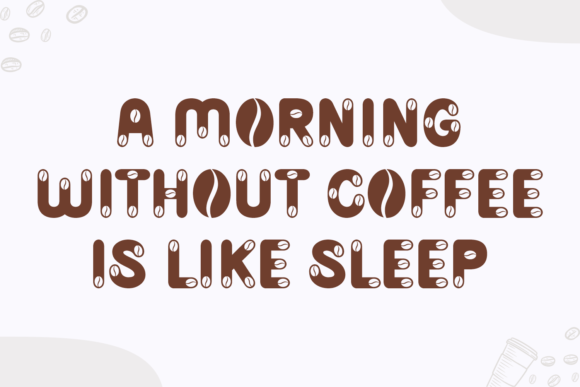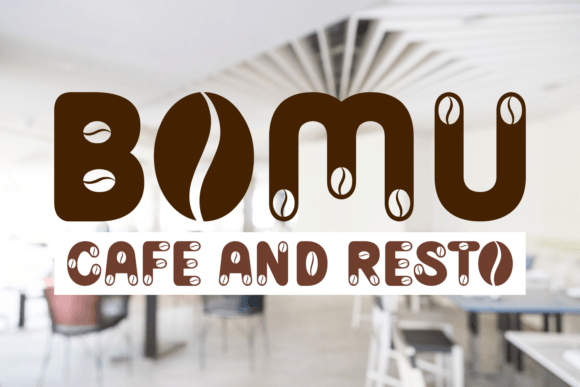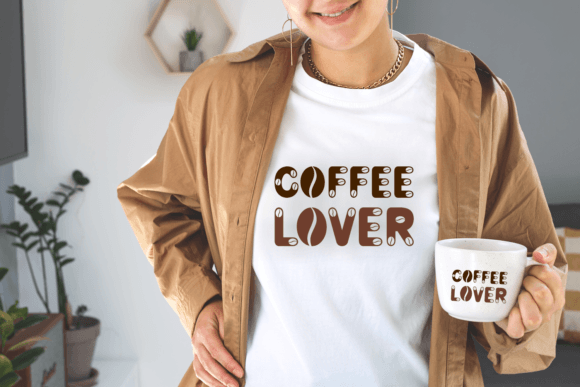
Coffee Drinks Font: The Perfect Blend for Your Creative Projects
Are you a designer, crafter, or creative enthusiast looking for a unique and versatile font to elevate your projects? Look no further than the “Coffee Drinks” font, a decorative typeface that captures the essence of cafes, bars, and restaurants. With its clean lines, authentic feel, and sophisticated charm, this font is perfect for a wide range of applications, from greeting cards and product packaging to web design and educational materials.
A Font that Brews Up Sophistication
The “Coffee Drinks” font is specifically designed to bring a touch of elegance and refinement to your creative projects. Its unique blend of style and functionality makes it an ideal choice for designers and crafters who want to add a professional touch to their work. Whether you’re creating a logo, brochure, or social media graphics, this font is sure to impress.
Perfect for Café-Inspired Projects and Beyond
As its name suggests, the “Coffee Drinks” font is perfect for projects that evoke the warm and cozy atmosphere of a café. However, its versatility extends far beyond the café vibe, making it suitable for a wide range of applications, including:
- Quote displays and typography
- Product packaging labels and branding
- Event logotypes and signage
- Mug lettering and ceramics
- Embroidery and crafts
- Editorial applications and publishing
Enhance Your Web Design and Brand Identity
The “Coffee Drinks” font is not just limited to print design. Its clean and elegant lines make it an excellent choice for web design projects, including:
- Website headers and typography
- Social media graphics and branding
- Digital marketing materials and campaigns
- E-learning platforms and educational resources
Additionally, this font is perfect for crafting brand identities, merchandise branding, and apparel design. Its unique charm and international flair make it an excellent choice for businesses and organizations looking to establish a strong visual presence.
A Student Font for Academic Excellence
The “Coffee Drinks” font is specifically designed with students and educators in mind. Its clear and legible lines make it an excellent choice for academic papers, presentations, and educational materials. Whether you’re a student looking to create a standout project or an educator seeking to enhance your teaching materials, this font is sure to meet your needs.
Multilingual Support for Global Creatives
In today’s globalized world, creative projects often require multilingual support. The “Coffee Drinks” font is designed to integrate an international flair into its design, making it an excellent choice for projects that require support for multiple languages. Whether you’re working on a global branding campaign or creating educational materials for a diverse audience, this font has got you covered.
In conclusion, the “Coffee Drinks” font is a versatile and sophisticated typeface that is perfect for a wide range of creative projects. Its unique blend of style, functionality, and international flair makes it an excellent choice for designers, crafters, and creative enthusiasts around the world. Whether you’re working on a café-inspired project or a multilingual campaign, this font is sure to bring a touch of elegance and refinement to your work.